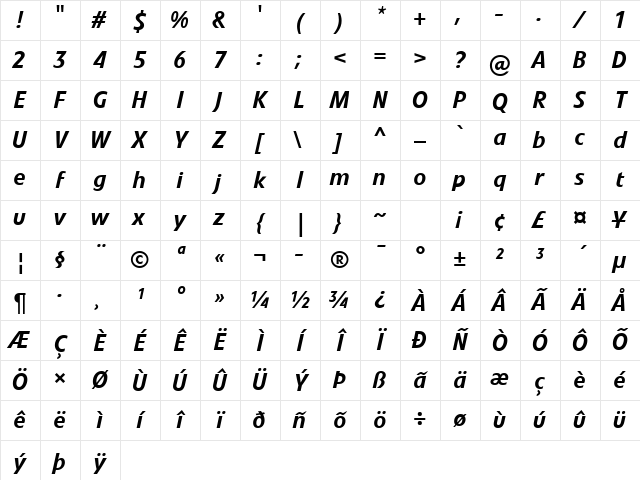
Veto Com Medium Italic Free Font
Veto Com Medium Italic
Designer: Marco Ganz
Design Context for Veto Com
Veto Com is a composed and adaptable typeface that performs quietly and consistently across a wide range of design contexts. The slanted form adds forward momentum and visual energy.